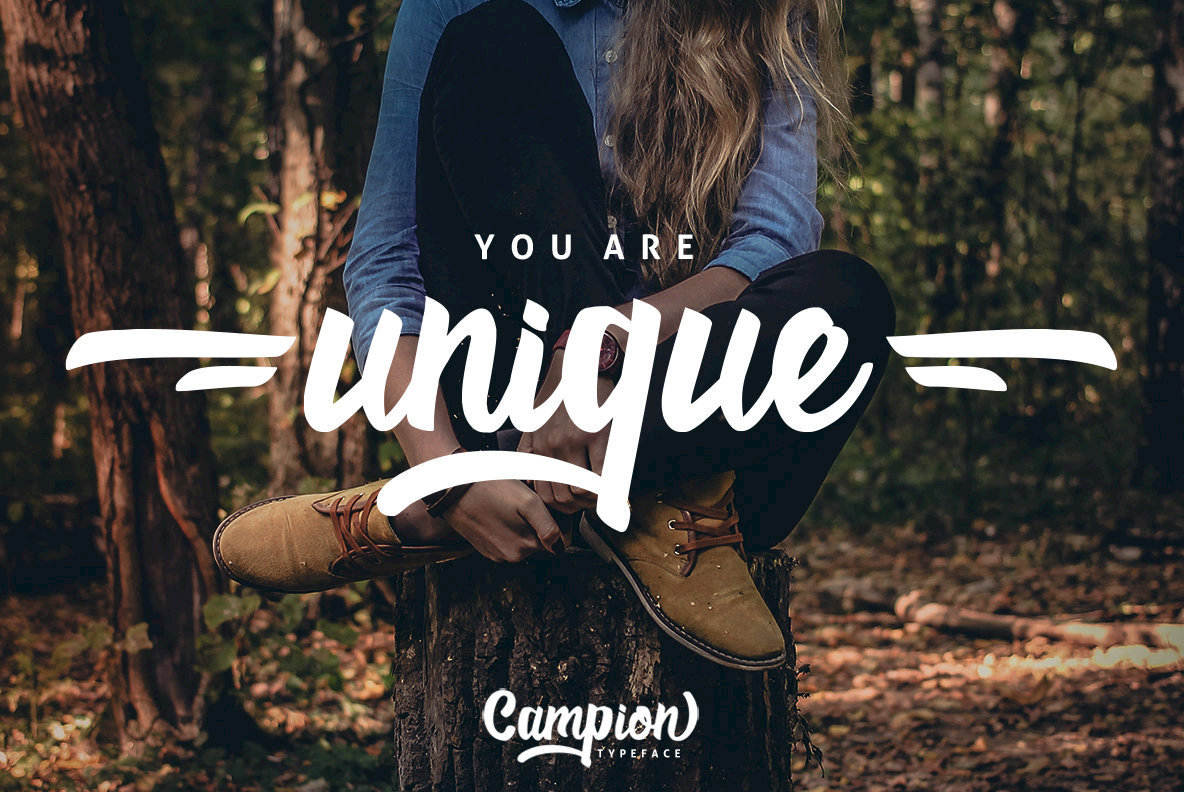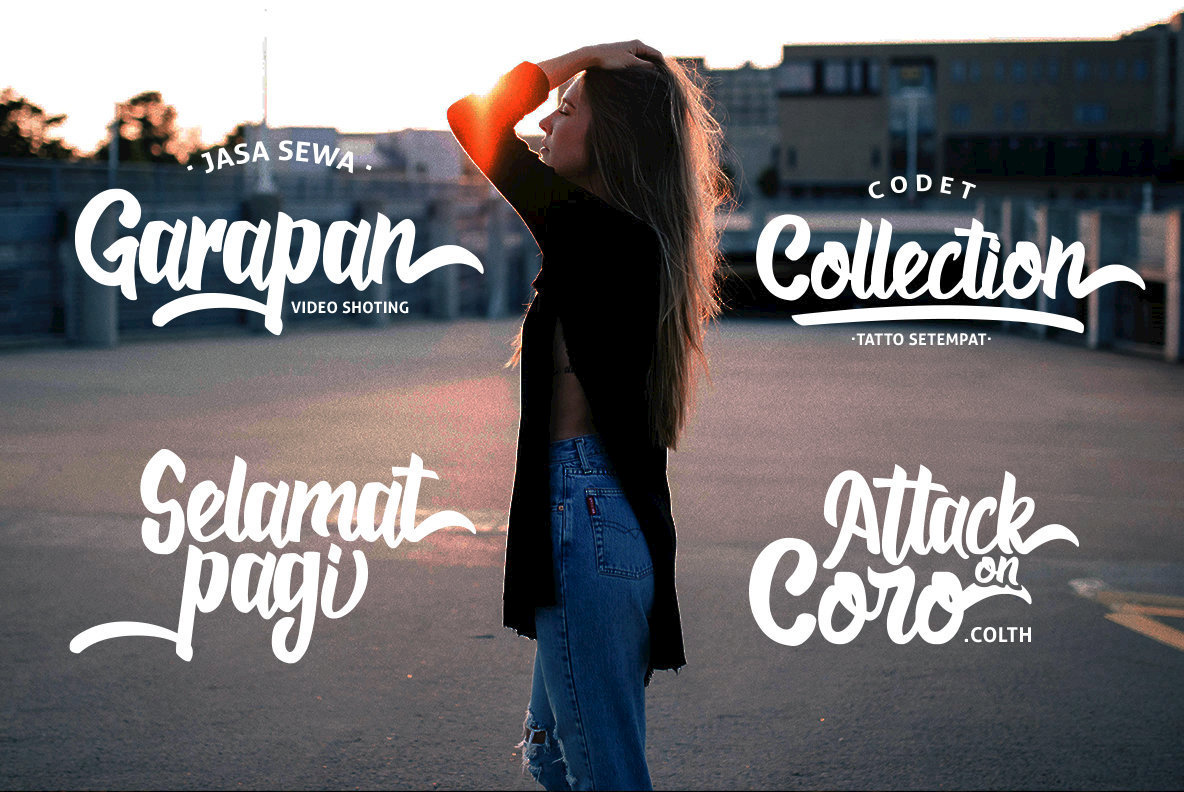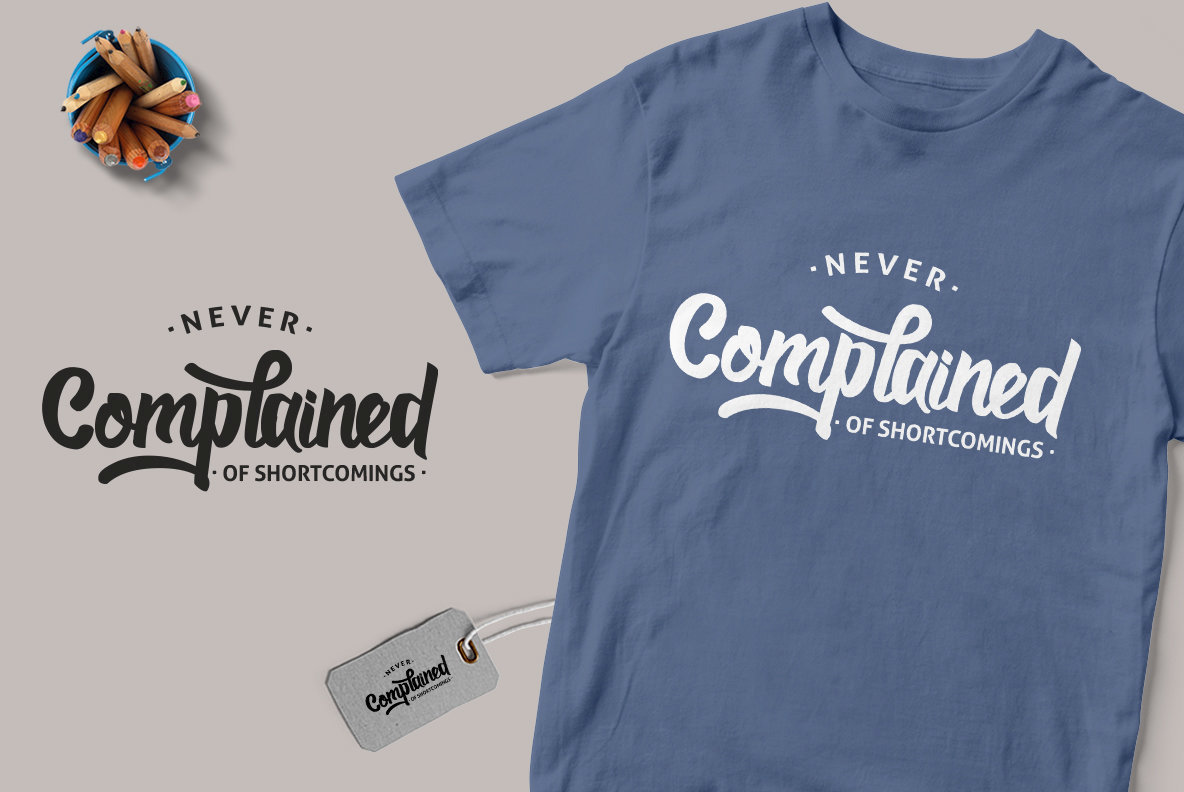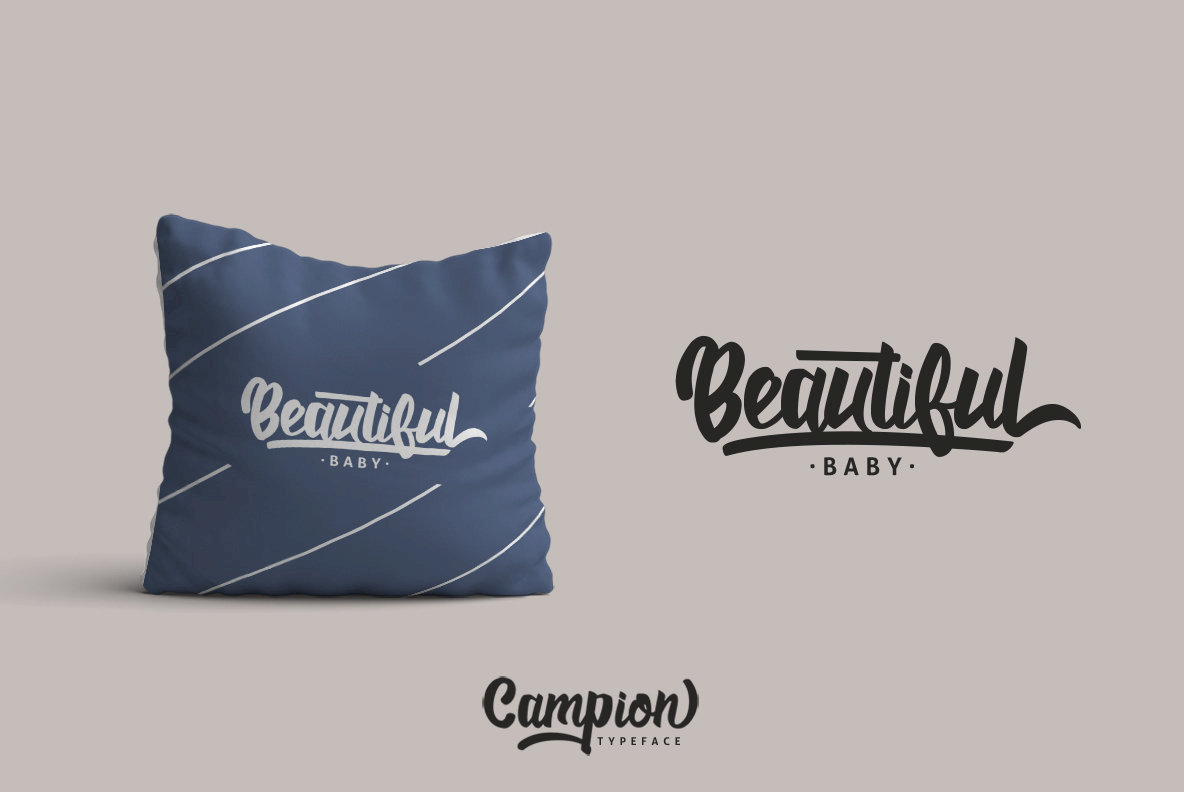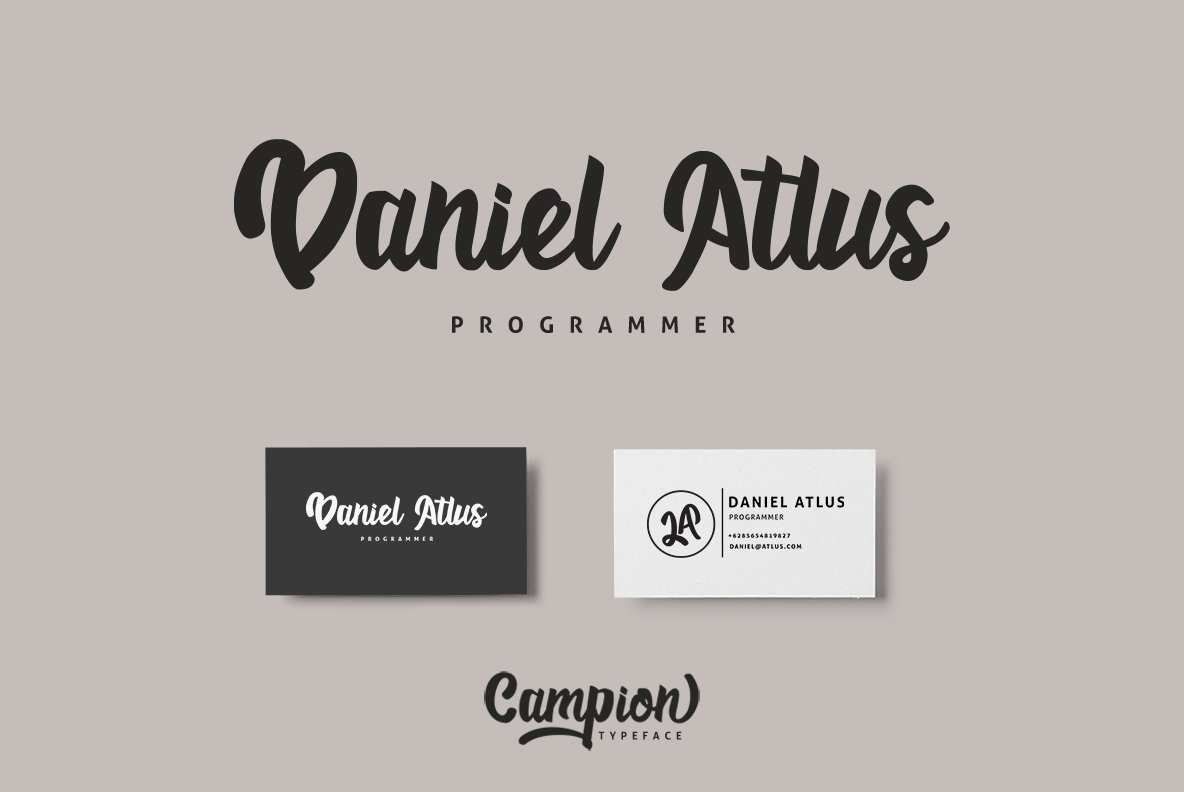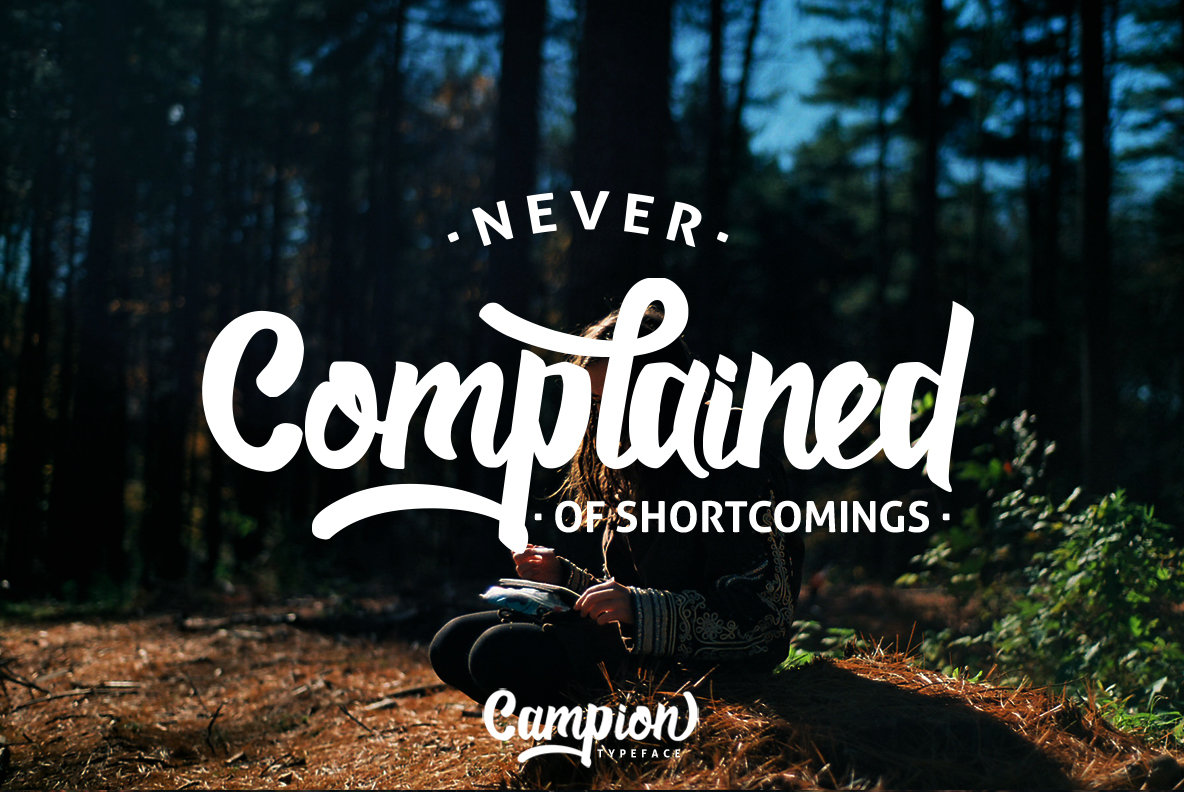
Campion Typeface Font
Campion Typeface
Bonus Swash Campion Typeface
Campion Typeface is a stylish script font that works best for branding, poster, and logo design projects.